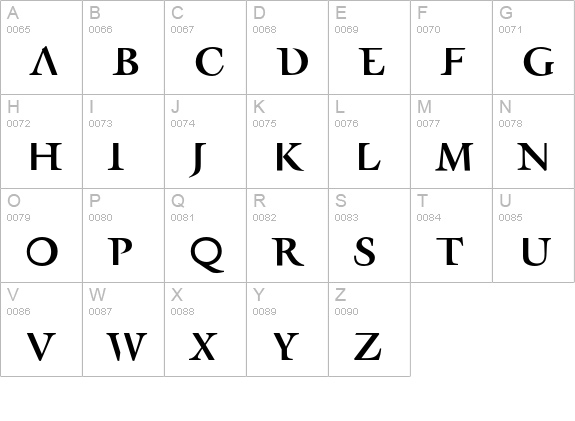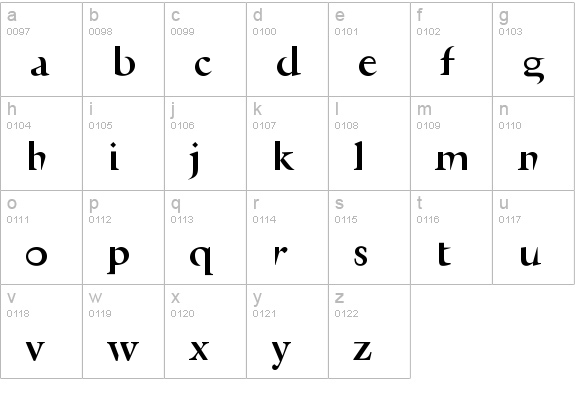
RetrospectaBold Font Details
RetrospectaBold is a mesmerizing font that effortlessly combines elegance and boldness, making it perfect for adding a touch of sophistication to any design project. With its clean lines and modern yet timeless appeal, this font is sure to capture attention and leave a lasting impression. What sets RetrospectaBold apart is not only its stunning aesthetics but also its accessibility. It is freely available to download at FontsMarket.com, allowing designers and creatives from all walks of life to enjoy its beauty without any constraints. Whether you're designing a logo, creating a captivating poster, or crafting a memorable branding package, RetrospectaBold will effortlessly elevate your work to a whole new level. Its versatility shines through, making it suitable for a wide range of applications, from print to digital. The carefully crafted letterforms of RetrospectaBold exude confidence and style, making it an excellent choice for headlines, titles, and attention-grabbing text. Its bold yet refined nature ensures legibility, even at smaller sizes, making it a reliable option for body text as well. The free availability of RetrospectaBold at FontsMarket.com is a testament to the passion for design and the belief in making quality resources accessible to all. Don't miss out on this opportunity to enhance your designs with the timeless beauty of RetrospectaBold. Download it today and experience the power of this remarkable font.